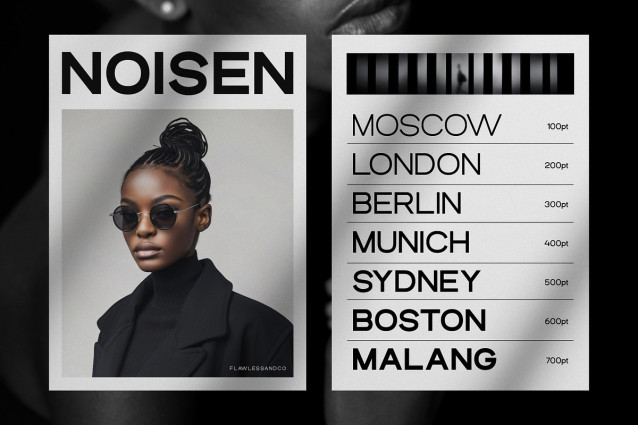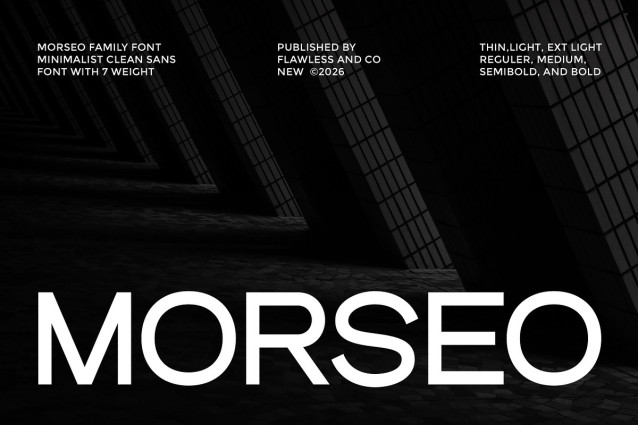
Morseo Font
Morseo Font is a minimalist sans serif family font designed with a clean, modern, and highly versatile character. Built for clarity and balance, Morseo delivers a professional look that feels timeless yet contemporary, making it ideal for a wide range of design needs. With 7 carefully crafted weights—from Thin and Extra Light to Semibold and Bold—this font family offers excellent flexibility for both display and text usage.